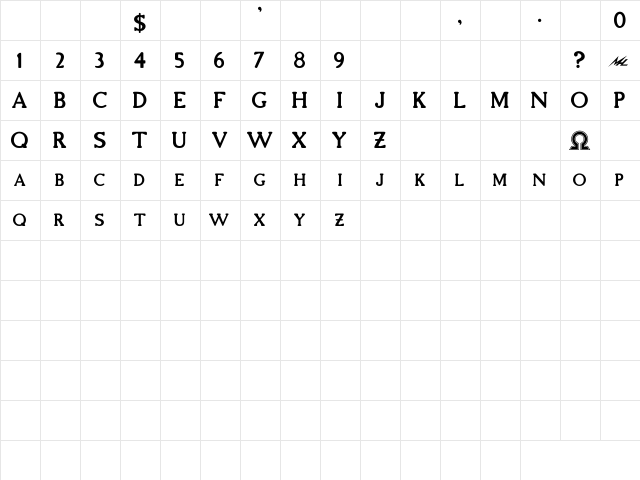
Section_Letters Bold
Design Context for Section_Letters Typeface
Section_Letters is a composed and adaptable typeface that performs quietly and consistently across a wide range of design contexts. Its bold stroke weight gives it real presence on the page.